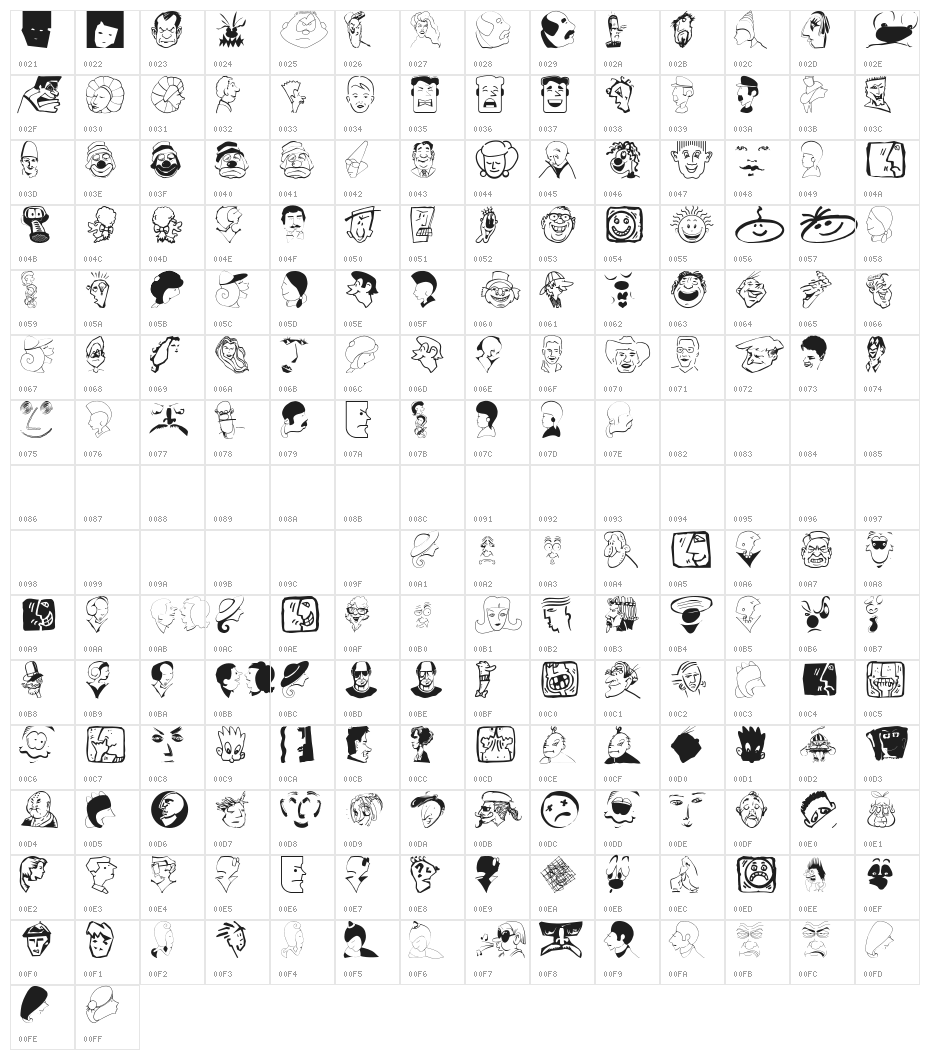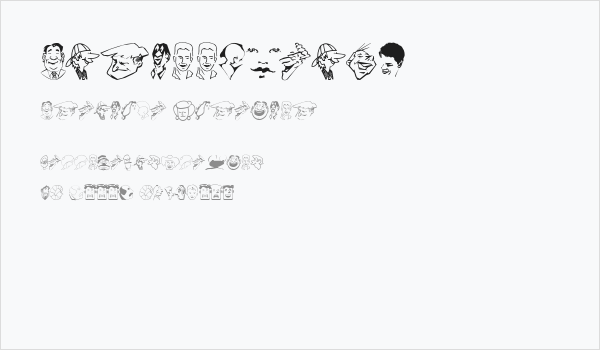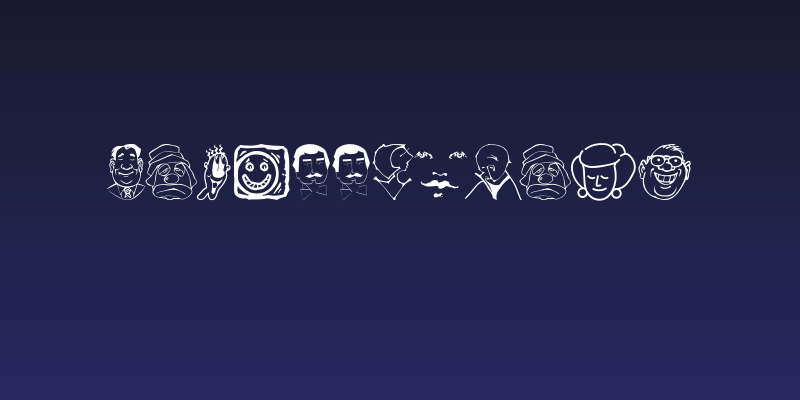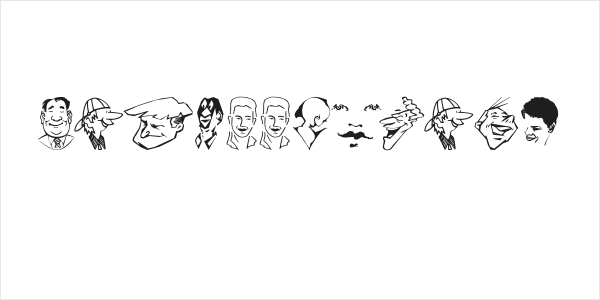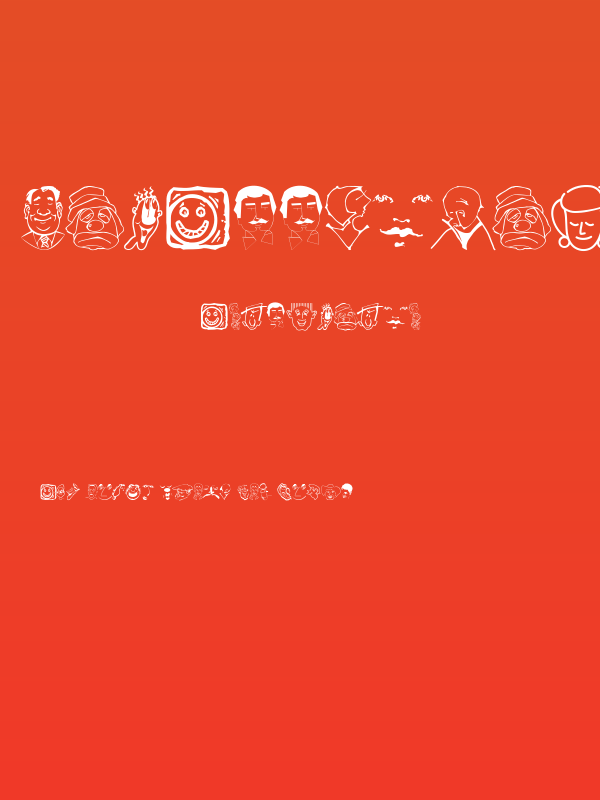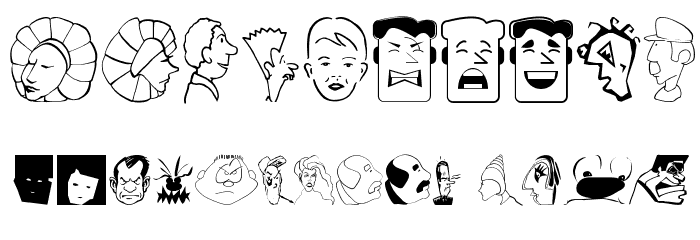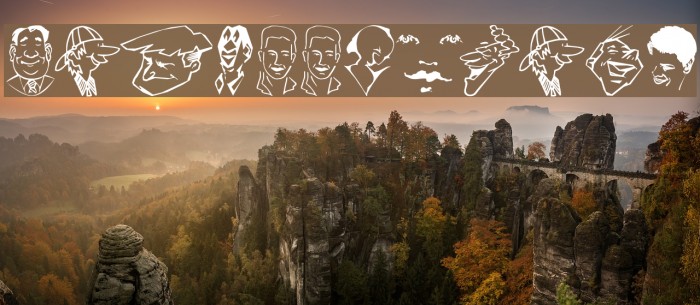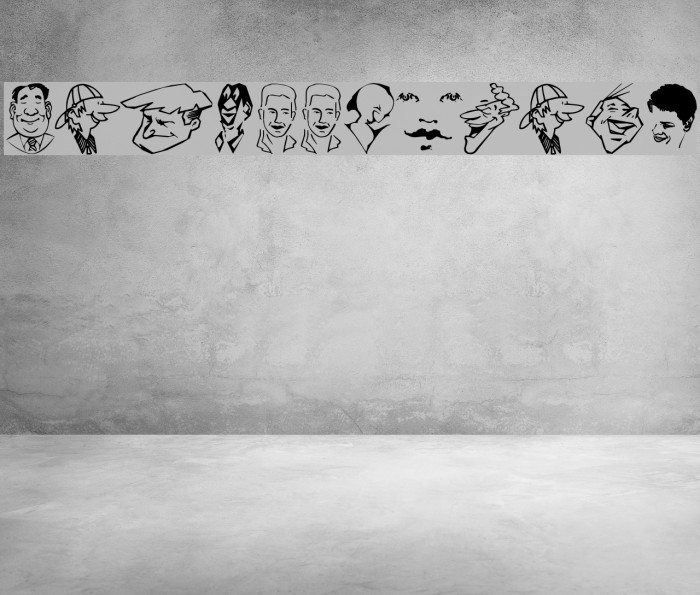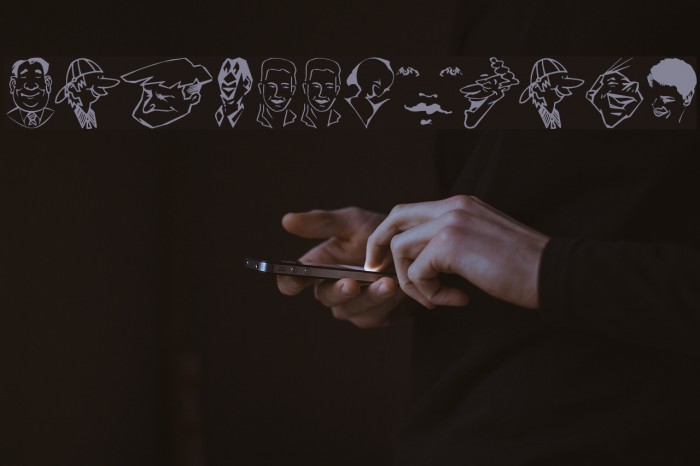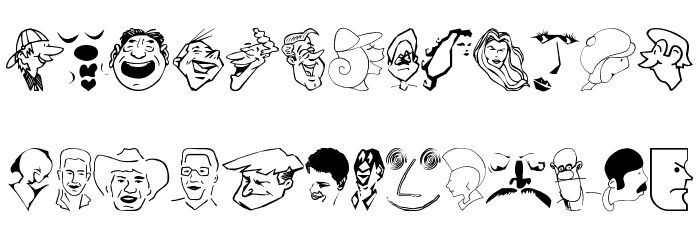
CartoonHeads Font
CartoonHeads Description
A highly decorative and playful collection of cartoon-style head illustrations, each glyph representing a unique face or character with exaggerated expressions and whimsical line work. The style varies from simple outlines to more detailed caricatures, emphasizing humor and personality.
| Overall Style | Decorative, Playful, Whimsical |
| Use Case | Logos, Posters, Headlines, Themed graphics, Educational materials |
| Proposed Projects | Children’s books, comic strips, party invitations, educational materials, playful branding, posters, and novelty designs. |